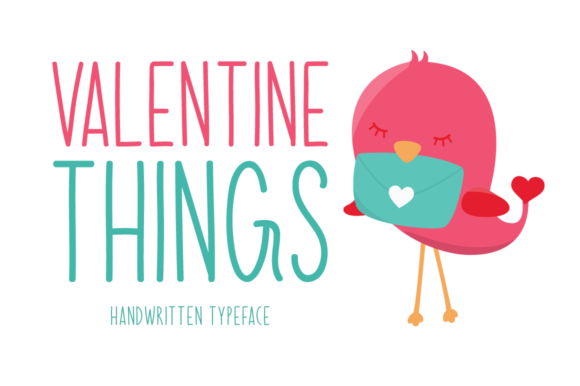
Introducing Valentine Things Font, a handwritten font that will make your heart skip a beat!
Prepare to fall head over heels for Valentine Things, a display font that oozes romance and charm. Crafted with love by Instagram Fonts, this font will add a touch of handwritten bliss to all your creative endeavors.
Whether you're designing invitations for a special someone, creating heartfelt greeting cards, or adding a personal touch to your social media posts, Valentine Things Font will steal the show. Its playful, flowing style will bring a smile to your face and capture the hearts of all who behold it.
Unlike ordinary fonts that blend into the background, Valentine Things Font stands out with its captivating curves and charming imperfections. Its unique character will make your designs shine brighter than ever before. It's the perfect choice for adding a touch of whimsy and romance to your projects.
So, why settle for ordinary when you can have extraordinary? Embrace the magic of Valentine Things Font today and let your creativity bloom. Its versatility knows no bounds, making it the perfect choice for a wide range of projects.
From enchanting wedding invitations to heartwarming love letters, Valentine Things Font will transform your words into works of art. Its ability to convey emotions through its elegant strokes will leave a lasting impression on all who receive your creations.
With Valentine Things Font, the possibilities are endless. So, dive right in, embrace the romance, and let your creativity shine brighter than ever before!